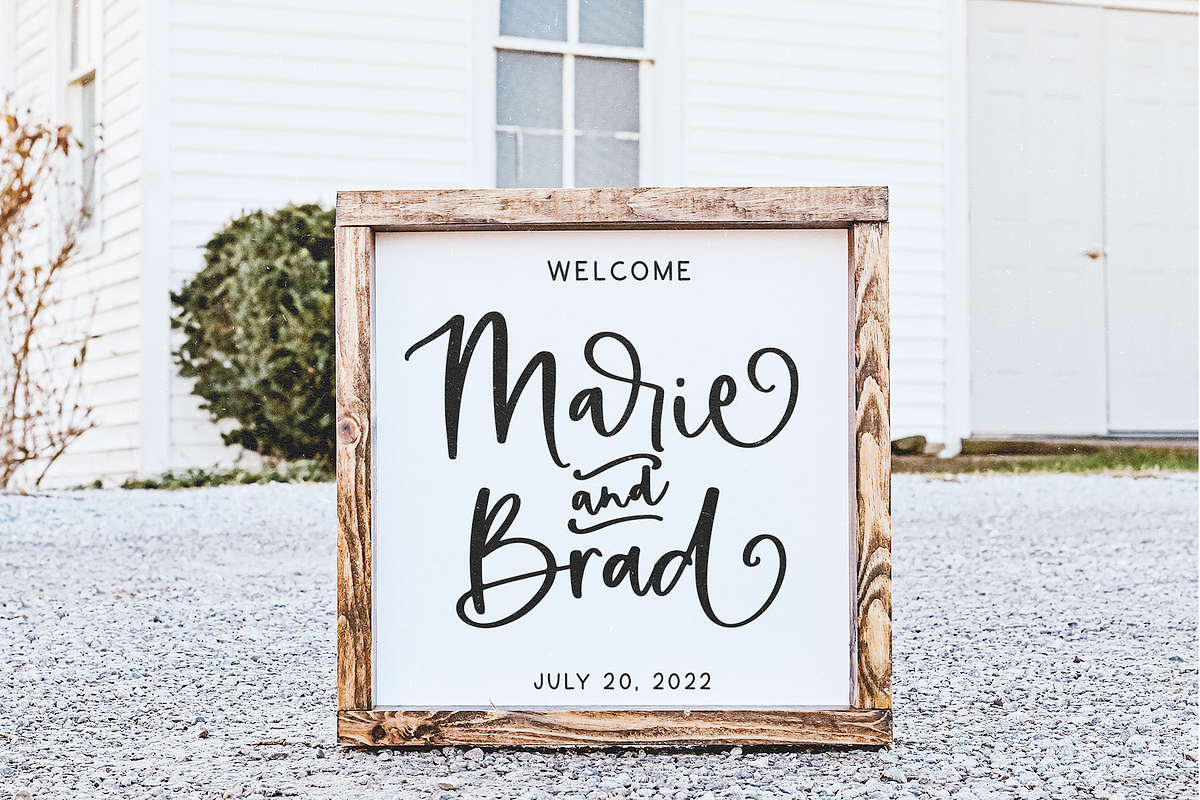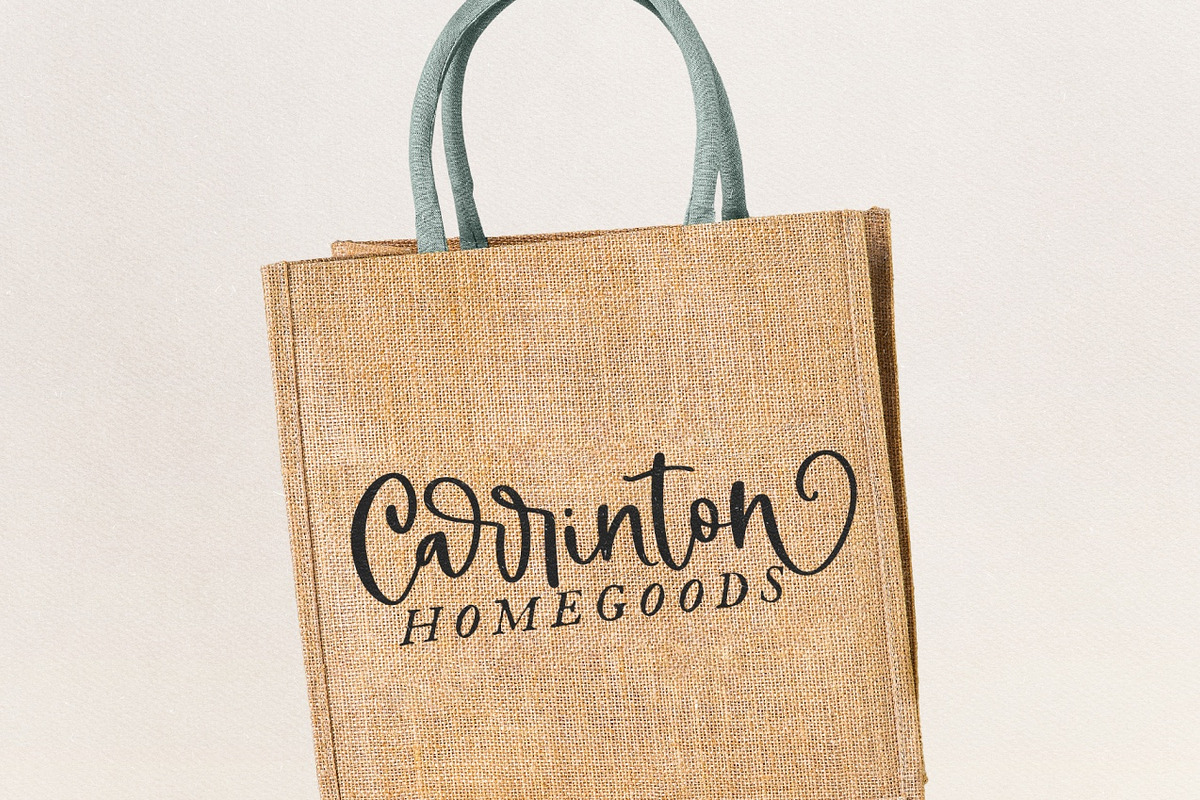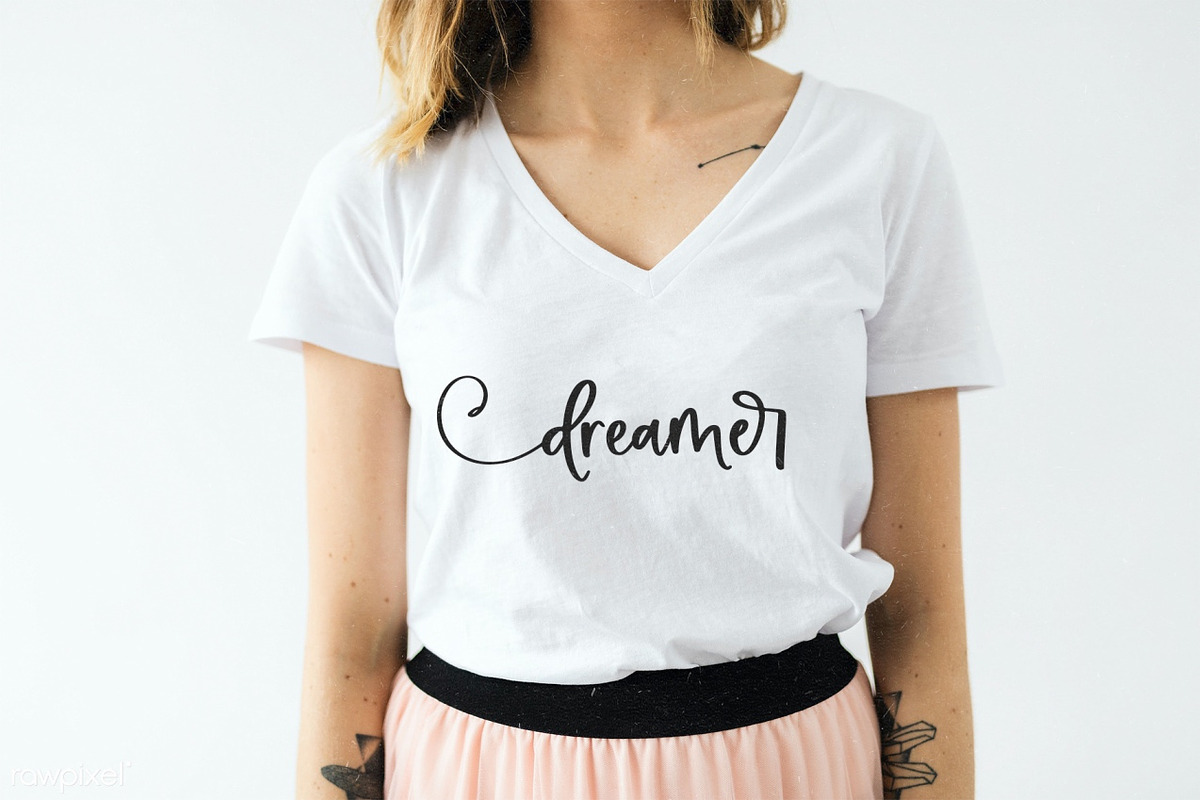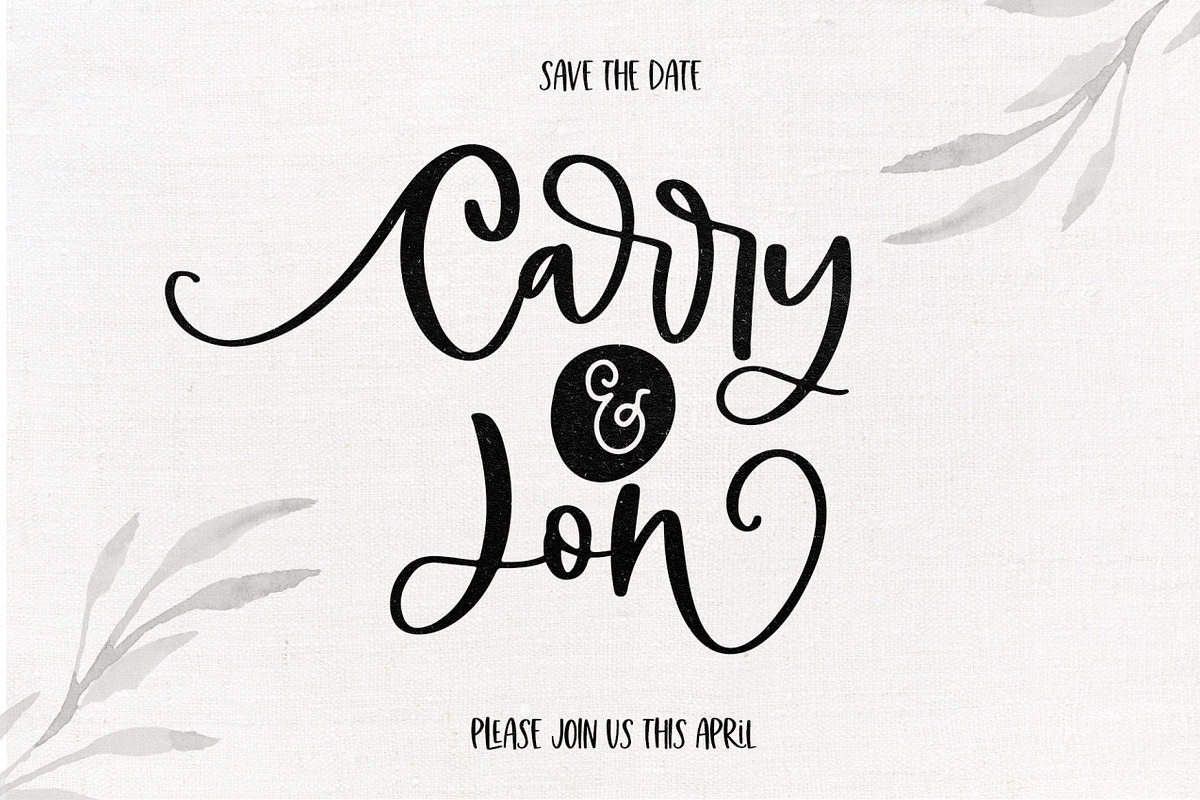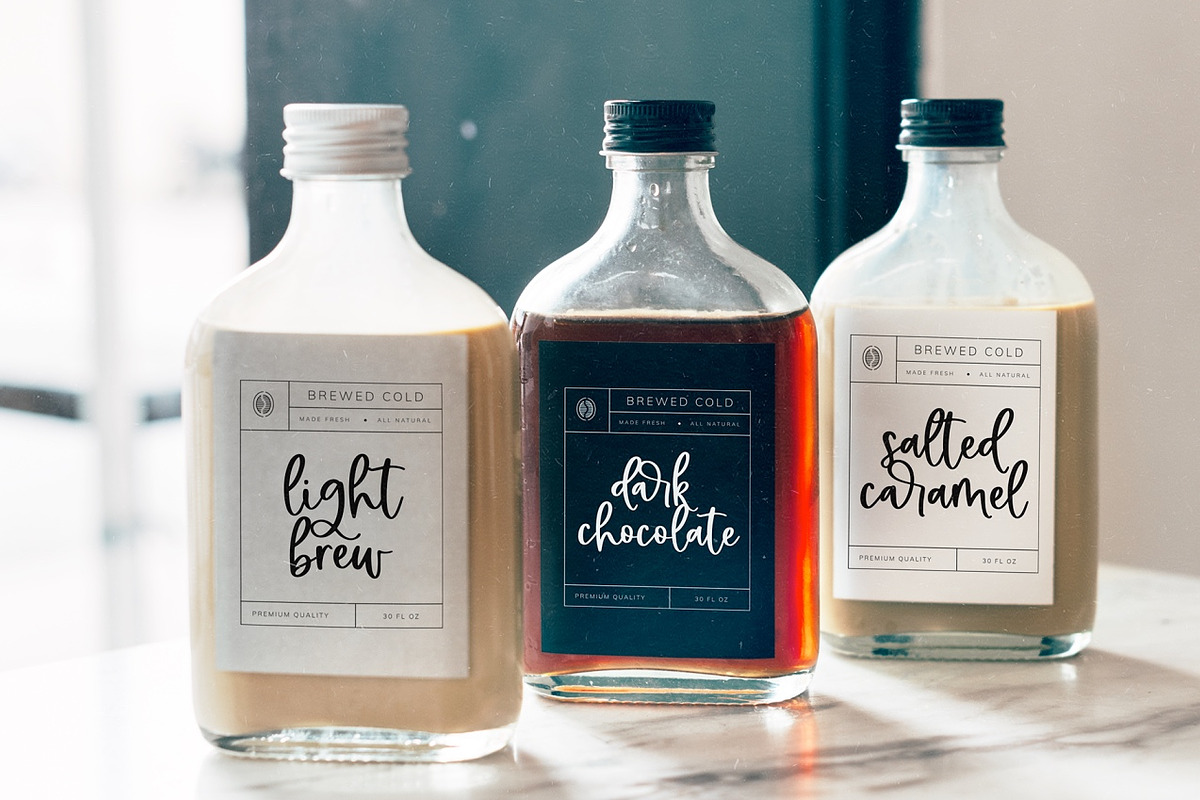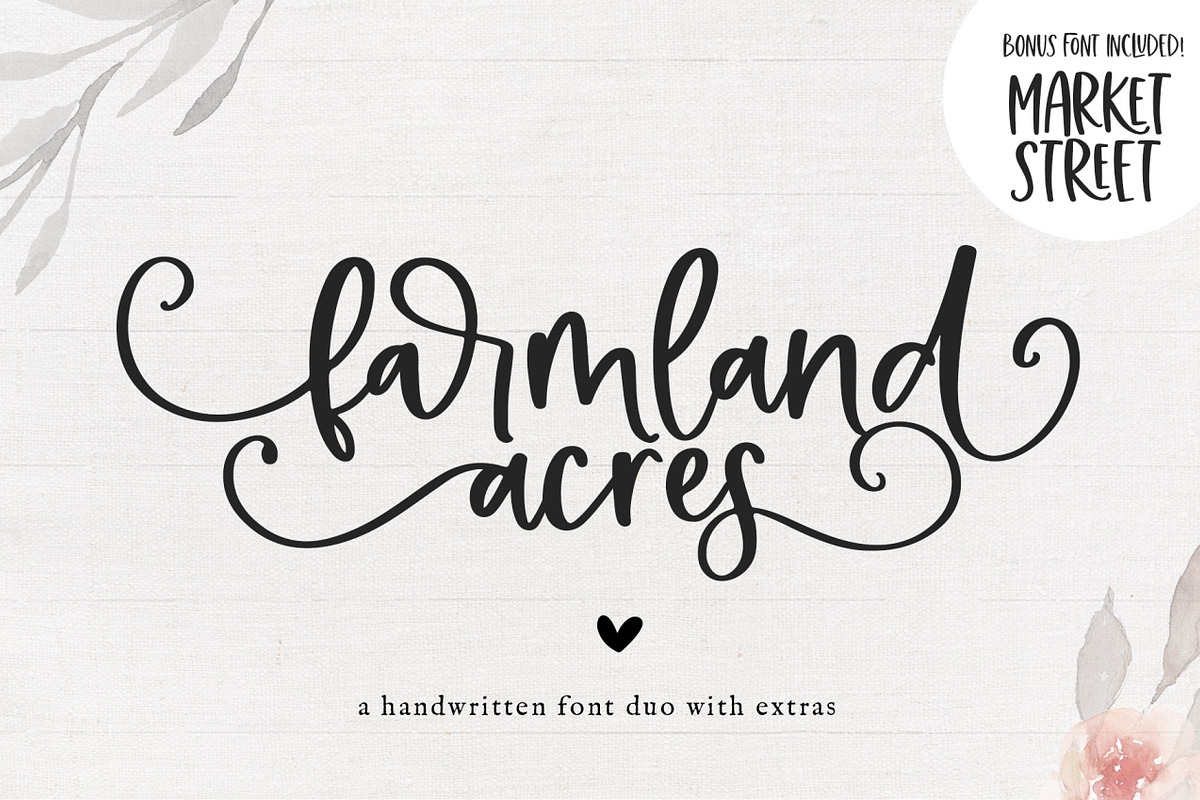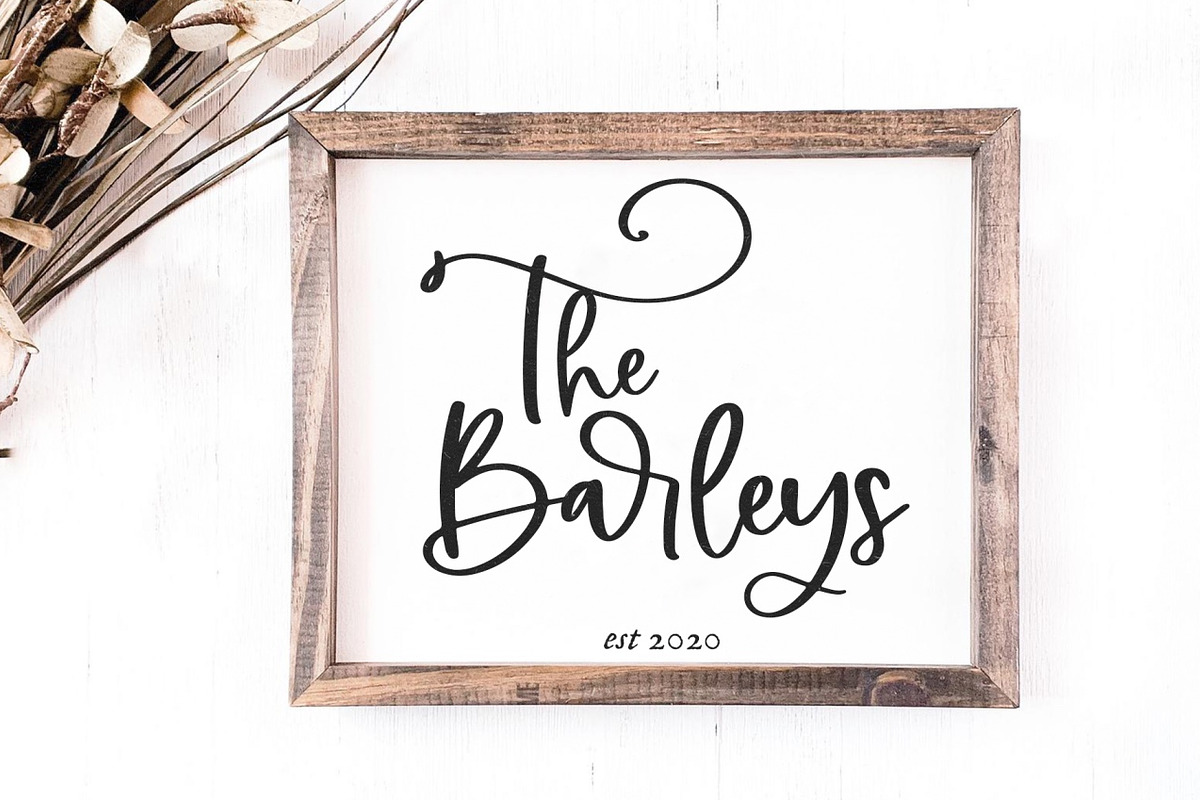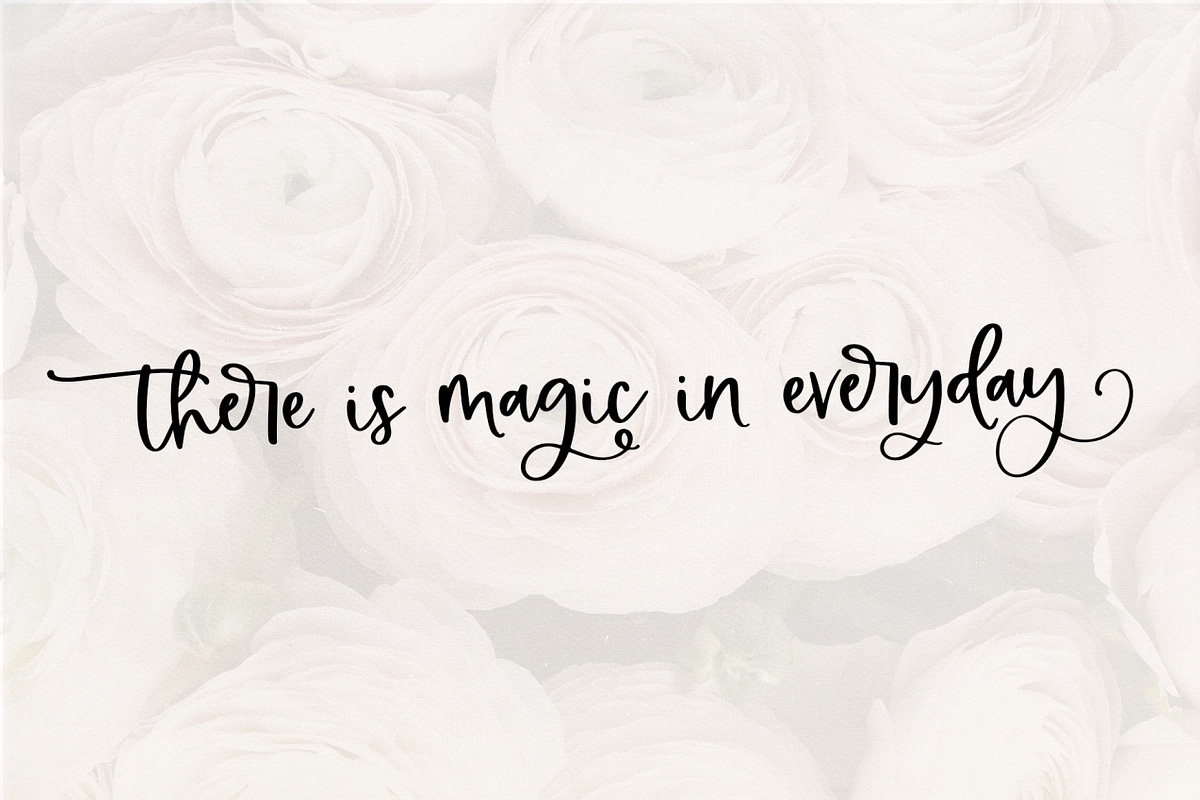
Farmland Acres | Script Font Duo
Farmland Acres is a handwritten script font with a ton of fun alternates! This font duo is perfect for all of your farmhouse designs, country decor, branding, logos, t-shirt design, svg designs, wall art, quotes, social media, and more!
An additional font, Market Street, is included with this purchase! Market Street is a tall handwritten font that compliments the script of Farmland Acres.
You will also get a doodle font with extra embellishments to use in your designs!